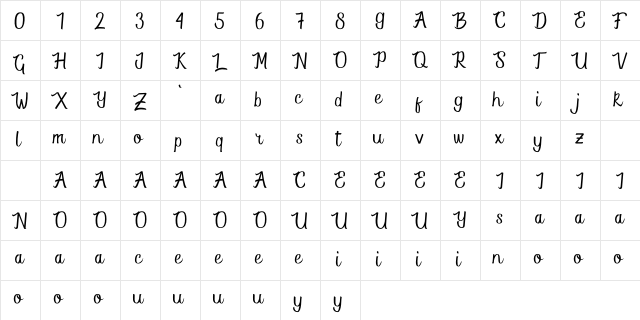
Jallarre Script Free Regular
Design Context for Jallarre Script Free Typeface
Jallarre Script Free brings a calligraphic fluidity to the page — its connecting strokes and expressive curves give it an unmistakably human quality.
Font Pairing: Combine Jallarre Script Free with a simple geometric sans for maximum contrast — the tension between flowing curves and clean structure is a classic typographic pairing.
Pro Tip: Use Jallarre Script Free for short runs of text — names, titles, or taglines. Extended body copy in script faces tires the eye quickly.